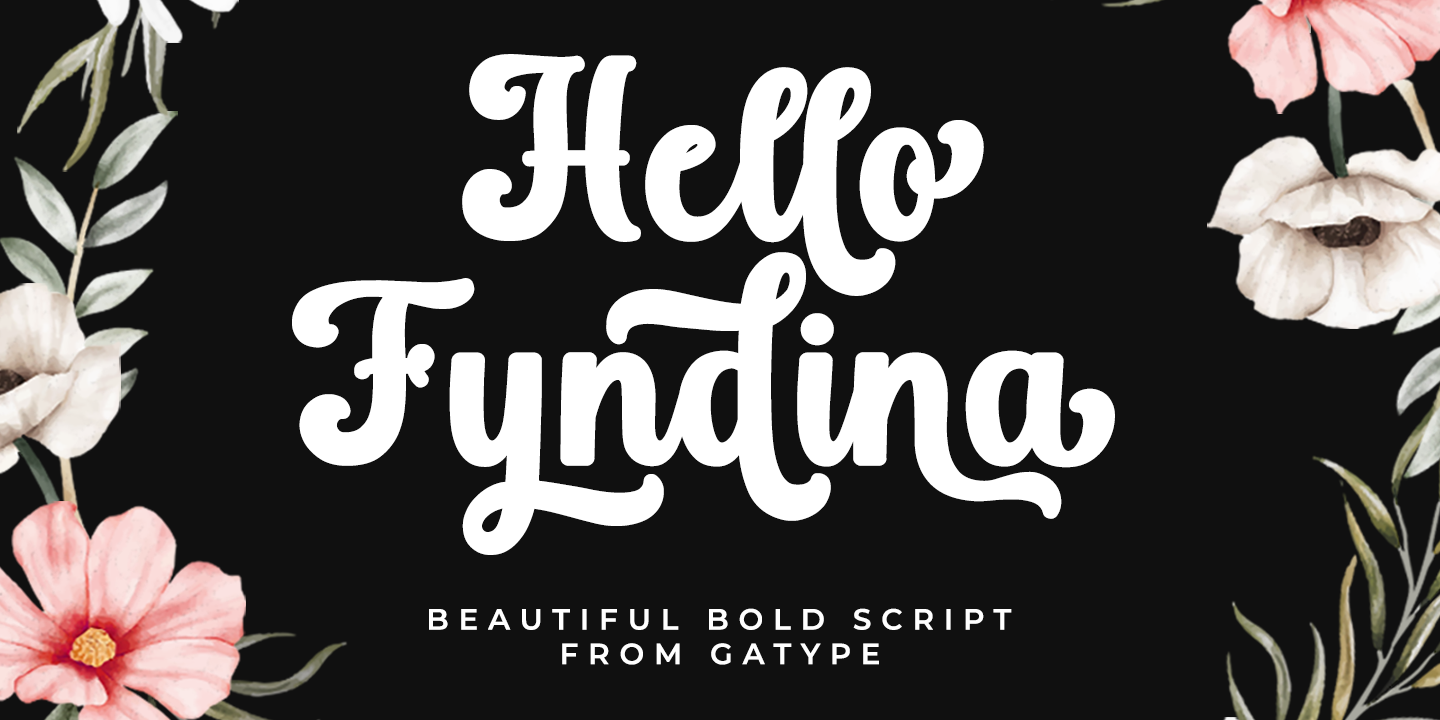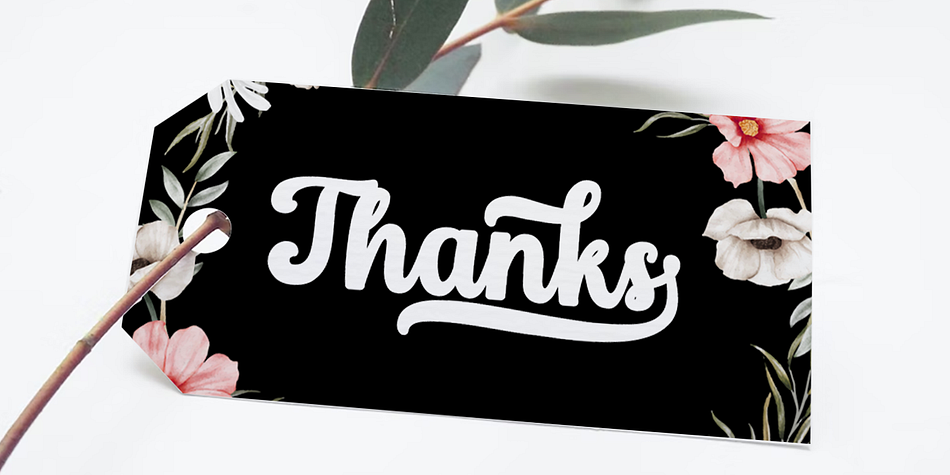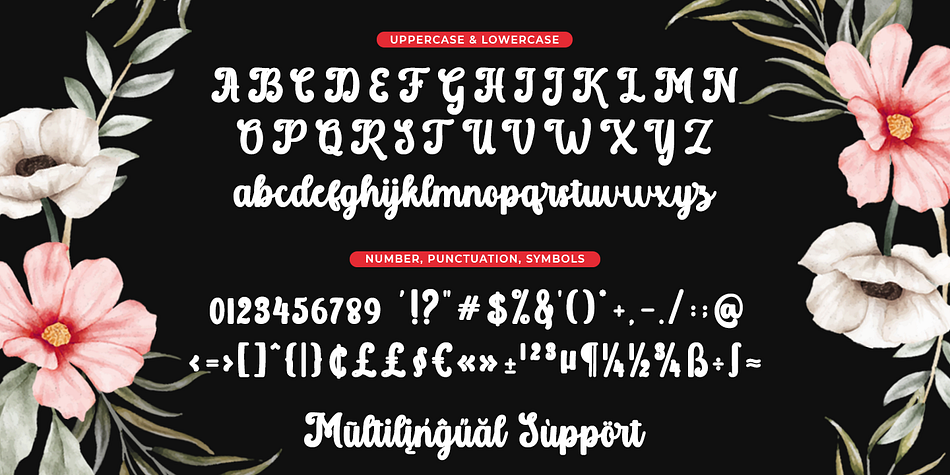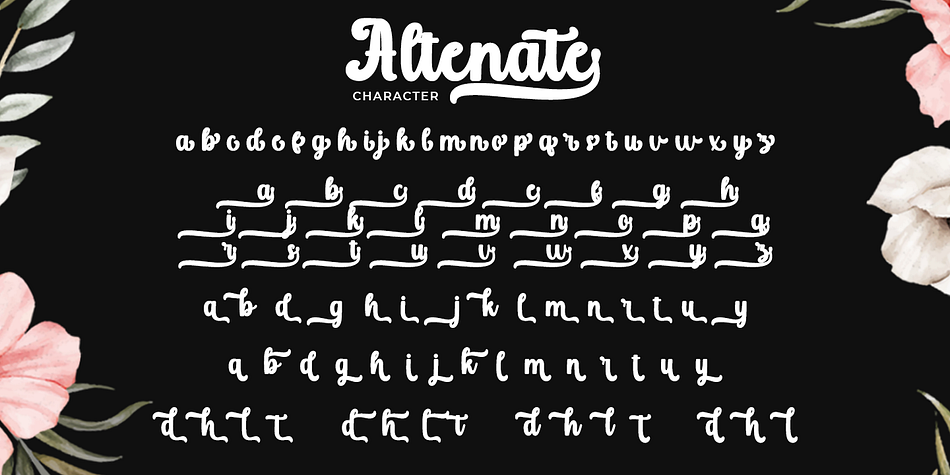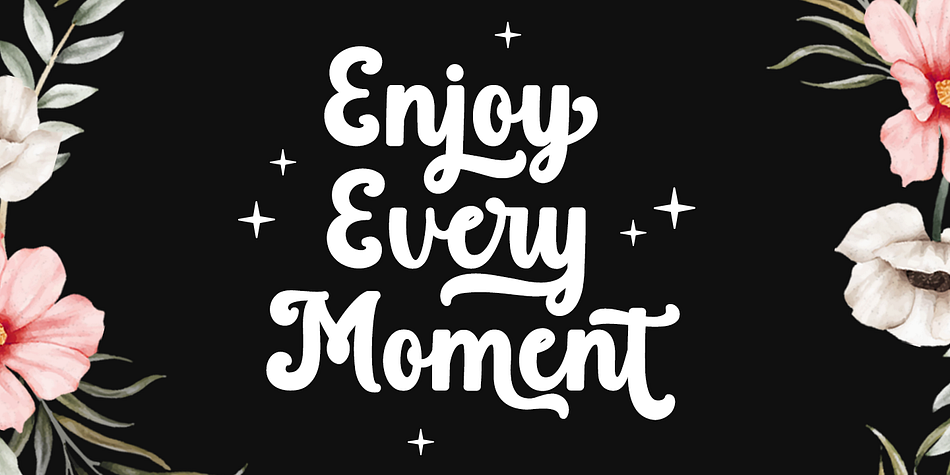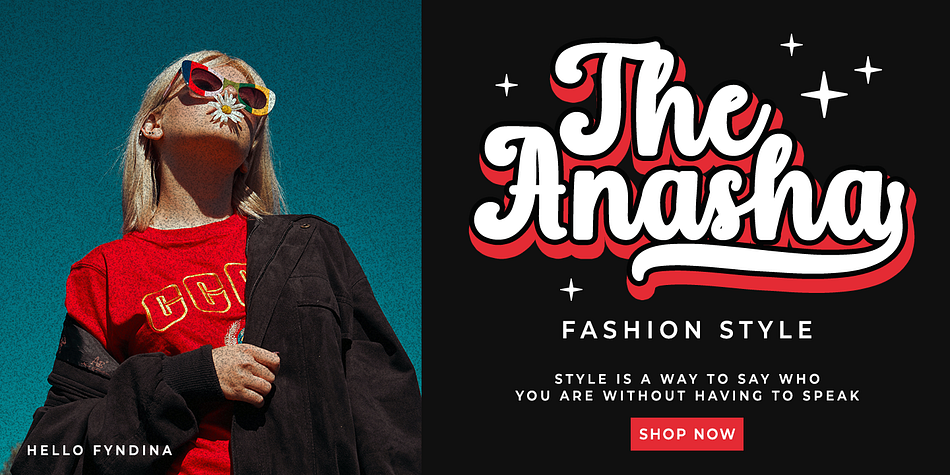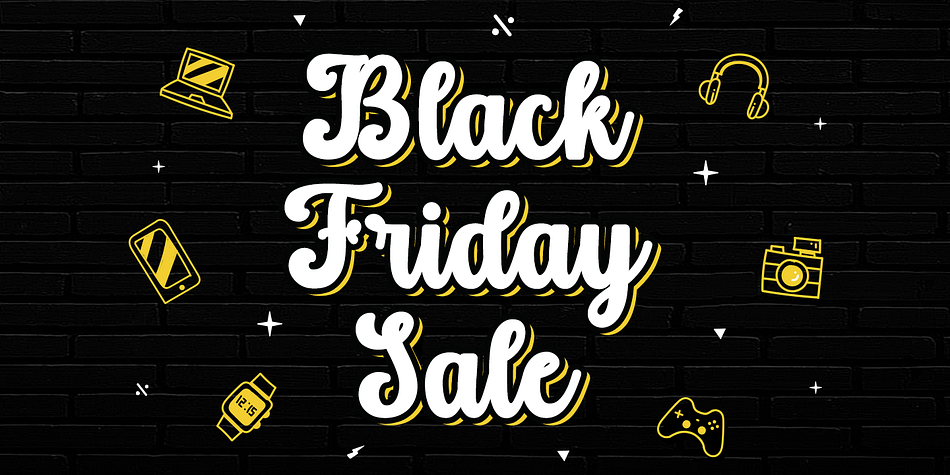
Hello Fyndina
Hello Fyndina is a brush script font family published by Gatype.
Hello Fyndina, This font is perfect for branding, invitations, stationery, wedding design, social media posts, advertising, product packaging, product design, labels, photography, watermarks, special events and more. Hello Fyndina is encoded with PUA Unicode, which allows full access to all additional characters without having to design any special software. Mac users can use Font Book, and Windows users can use Character Map to view and copy any additional characters to paste into your favorite text editor/app.